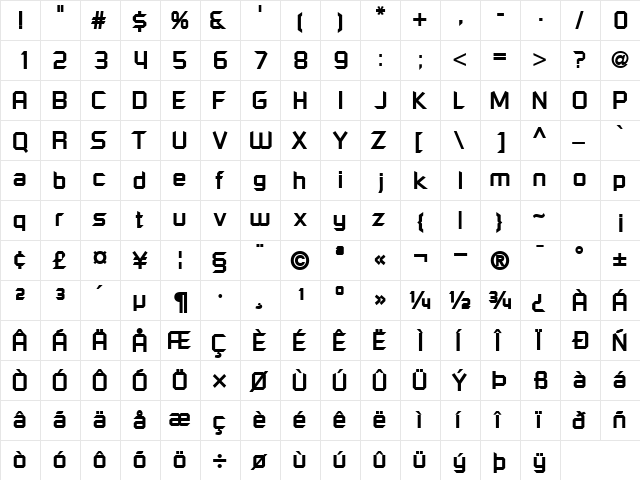
ShoestringSSK Bold
Design Context for ShoestringSSK Typeface
ShoestringSSK is a composed and adaptable typeface that performs quietly and consistently across a wide range of design contexts. Its bold stroke weight gives it real presence on the page.